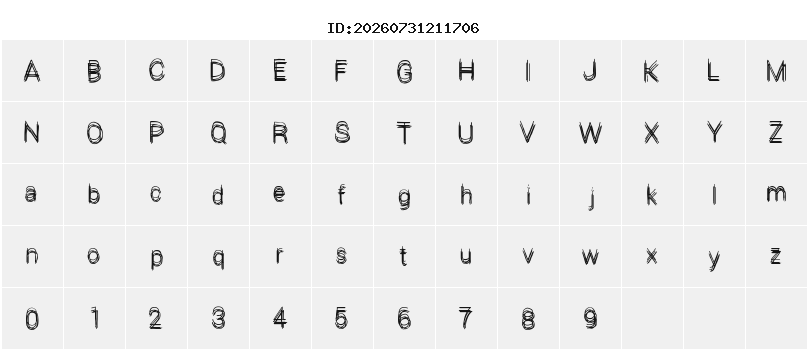
Le Petit Chaos Preview
• Font Name: Le Petit Chaos
• Designer: Woodcutter Manero
About Le Petit Chaos.ttf
Le Petit Chaos.ttf is a modern, elegant sans-serif font designed for ultimate readability and visual harmony. Perfect for branding, headlines, web design, and print materials.